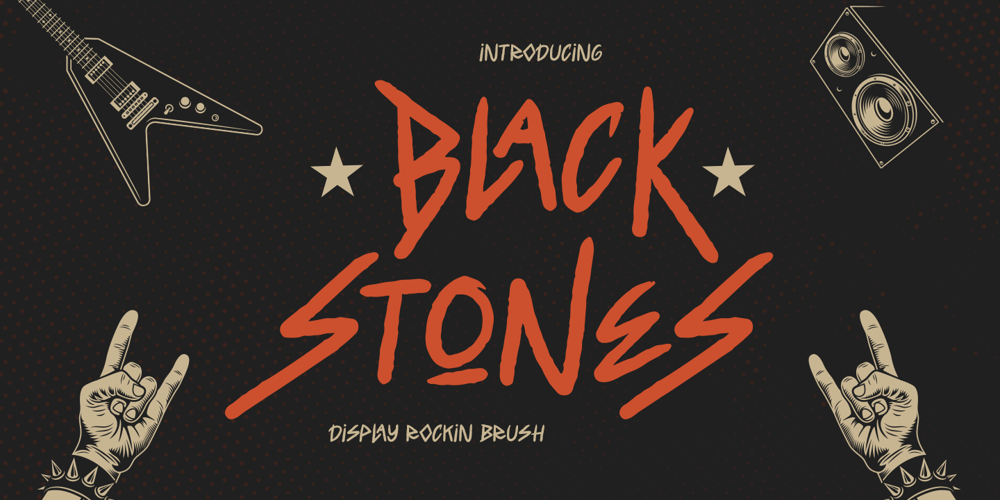
Black Stones Font Family was designed by Bayu Suwirya and published by Illushvara. Black Stones contains 1 styles and family package options. Hello,Black Stones is a display brush script font with rock music concept. The strokes alternates make this font outstanding and looks like handwritten grunge line very great for logotype. This type of font perfectly made to be applied especially in headline, esport logo, food packaging, fashion magazine, labels or any type of advertising purpose. This font support Multilingual Languages.FEATURES :-Uppercase-Lowercase-Number-Punctuation-Multilingual-PUA Encode-Opentype-Alternates-LigaturesFILES INCLUDED If you have any question, don’t hesitate to contact me. Happy Designing !!!Thank You,Illushvara Design